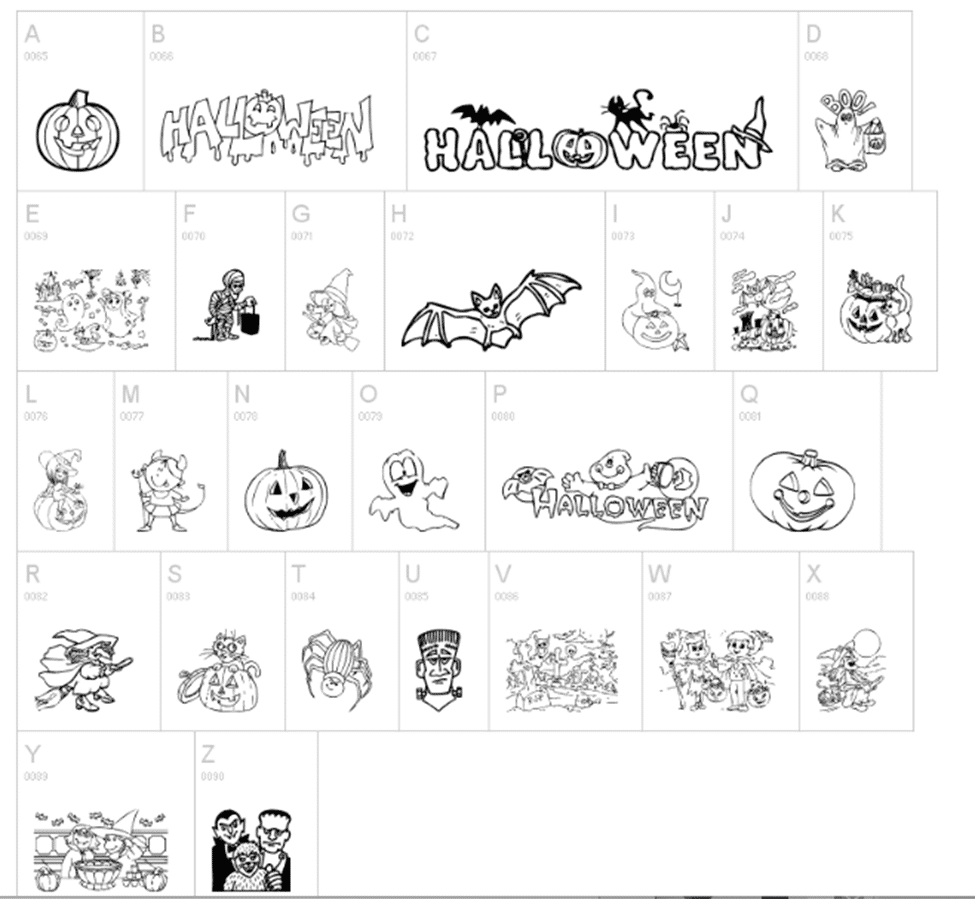
What Is A Halloween Font In Word . Find creepy, spooky and scary fonts for your halloween word documents. A halloween font is a great way to customize halloween invitations, decorations, and anything else that may come to mind. We’ll also cover tips and tricks for combining spooky font on word with other design elements like images and color schemes to create a cohesive and impactful document. The software already houses some cool. To create a halloween font on word, choose decorative fonts such as “chiller,” “creepster,” or “bones.” change the font color to black or spooky colors like orange or purple.
Find creepy, spooky and scary fonts for your halloween word documents. A halloween font is a great way to customize halloween invitations, decorations, and anything else that may come to mind. The software already houses some cool. To create a halloween font on word, choose decorative fonts such as “chiller,” “creepster,” or “bones.” change the font color to black or spooky colors like orange or purple. We’ll also cover tips and tricks for combining spooky font on word with other design elements like images and color schemes to create a cohesive and impactful document.